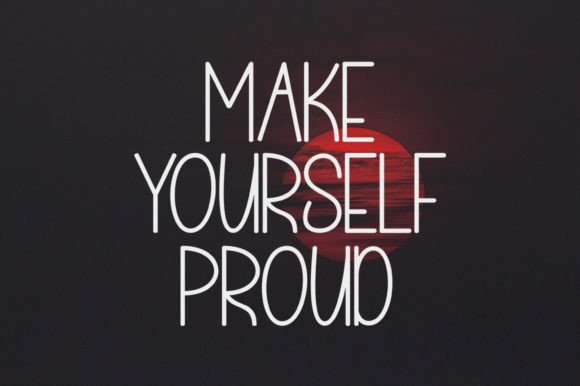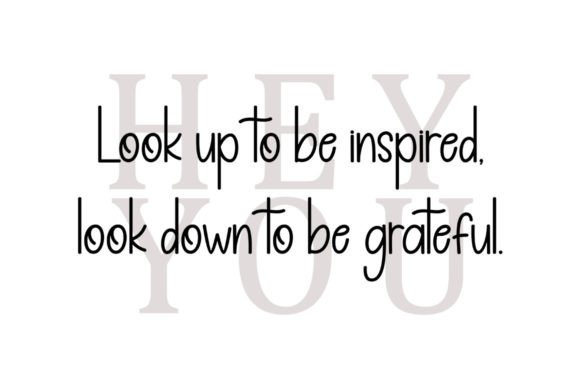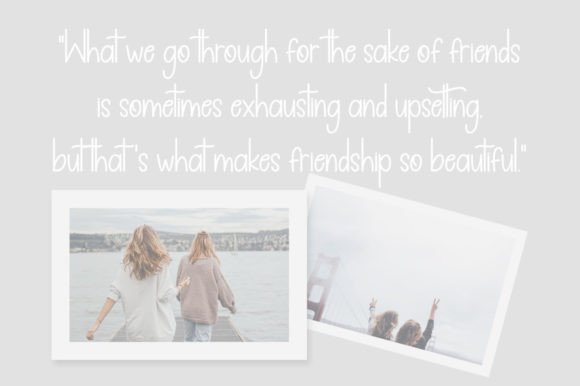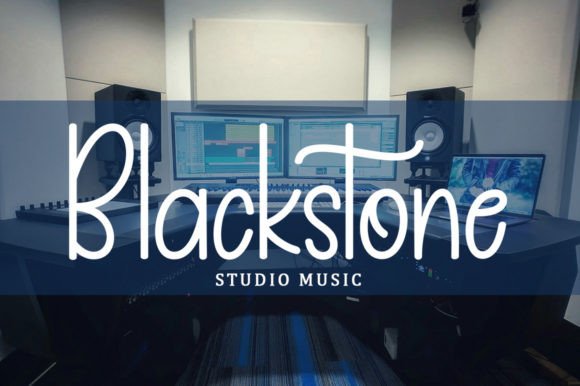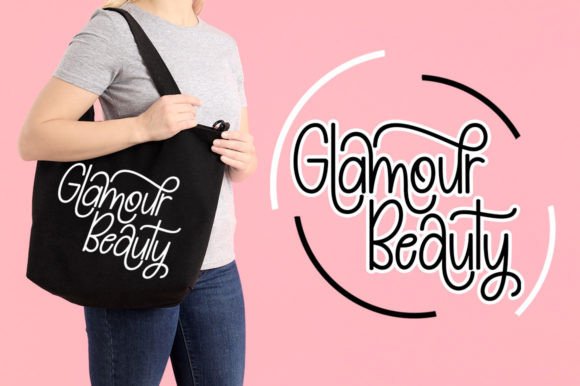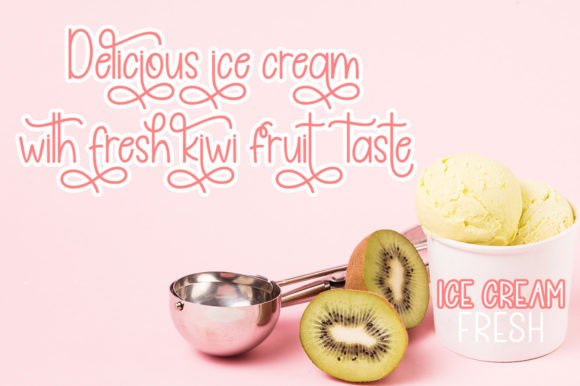
Unleash Your Creative Potential with the Balister Font
Have you ever been working on a design project, and the perfect font just slips through your fingers? You envision a beautiful, handwritten font that captures the essence of your brand, but it’s just out of reach. That’s where the Balister Font comes in – a game-changing, modern and elegant handwritten typeface that will elevate your designs to new heights.
The Balister Font is the perfect tool for designers who want to add a touch of sophistication and creativity to their work. With its beautiful, creative strokes, this font is ideal for a wide range of applications, from formal invitations and letterheads to social media and product packaging. Whether you’re looking to create a luxurious logo or a catchy advertisement, the Balister Font is sure to impress.
Balister Font Key Features
- Font Family: Balister
- Unique Characteristics:
- Highly legible in various font sizes
- Optimized for digital displays
- Comes in 6 weights (Light, Regular, Medium, Semi-Bold, Bold, Extra Bold)
Review of Balister Font
Overall, I think Balister Font has some great qualities that make it a solid choice for designers, but it also has some limitations that may not make it the best fit for every project.
- Unique and modern aesthetic: Balister Font has a distinct look that sets it apart from more traditional fonts.
- High-quality rendering: The font renders well at various sizes and resolutions.
- Good for titles and headings: The font’s bold and attention-grabbing qualities make it well-suited for titles and headings.
- Limited character set: The font may not have all the characters you need for your language or script.
- Not suitable for body text: The font can be difficult to read in large blocks of text, making it better suited for short quotes or titles.
- May not be compatible with all systems: Some users may experience rendering issues due to font limitations or system incompatibilities.
Overall, I think Balister Font is a solid choice for designers who need a unique and modern font for titles or headings. However, it may not be the best fit for projects that require a high volume of body text or need to be accessible on a wide range of systems.
Getting the Most Out of Balister Font
To get the most out of the Balister font, use it in conjunction with bold and italic styles to add emphasis and create visual interest. Experiment with different font sizes and colors to create a unique and eye-catching design.
The Balister font is particularly well-suited for use in titles, headings, and captions. It is also a great choice for use in branding and logo design due to its unique and distinctive style.